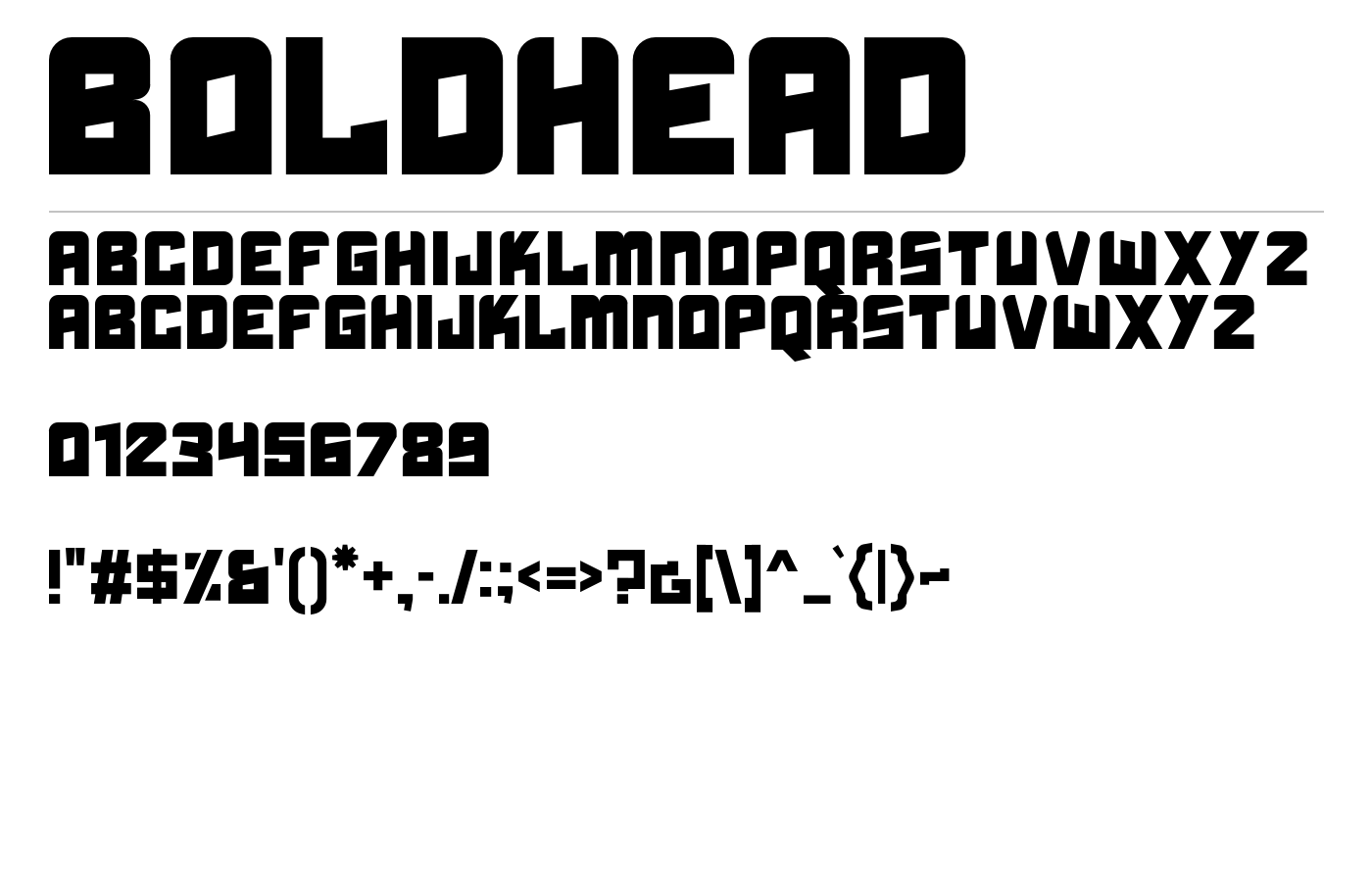
Boldhead is a striking sans serif font characterized by its heavy weight and condensed, blocky forms that create a powerful and impactful presence. With uniform stroke widths and sharp, geometric edges, it exudes a bold, modern vibe ideal for attention-grabbing headlines, logos, and branding that demands a strong, confident look. Its all-caps style and distinct letter shapes make it perfect for designs needing a commanding, urban edge.
Boldhead Font
About Boldhead Font